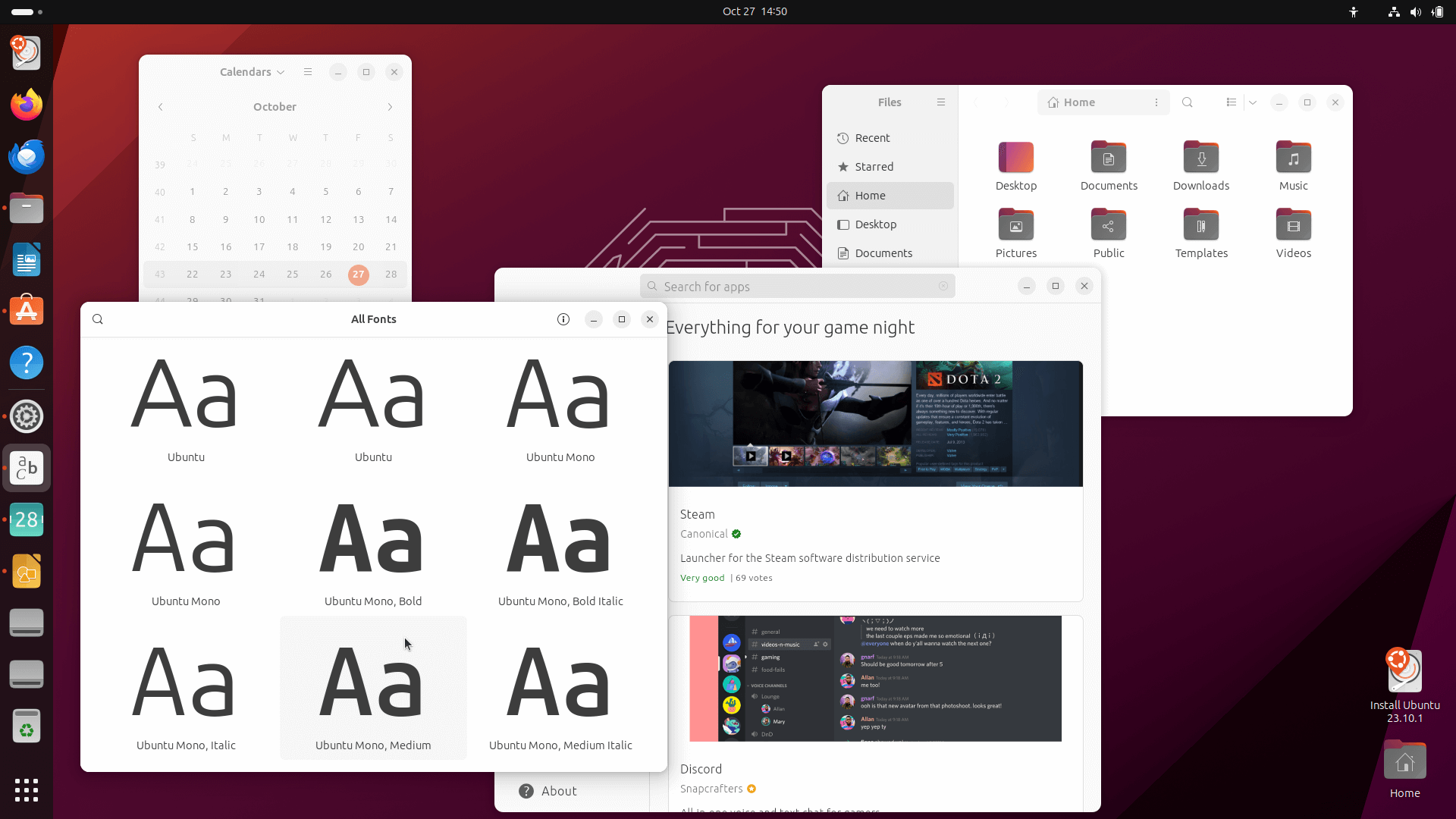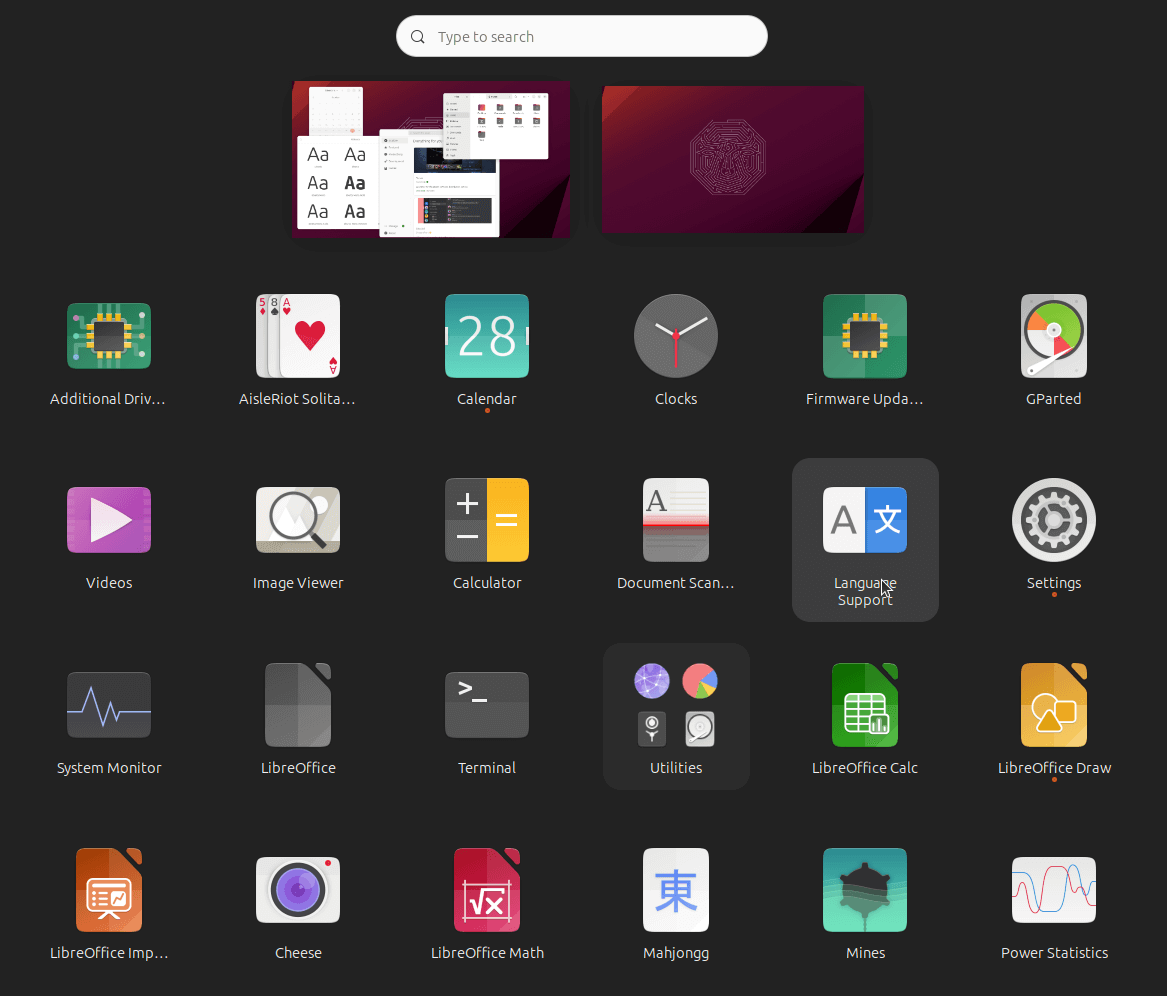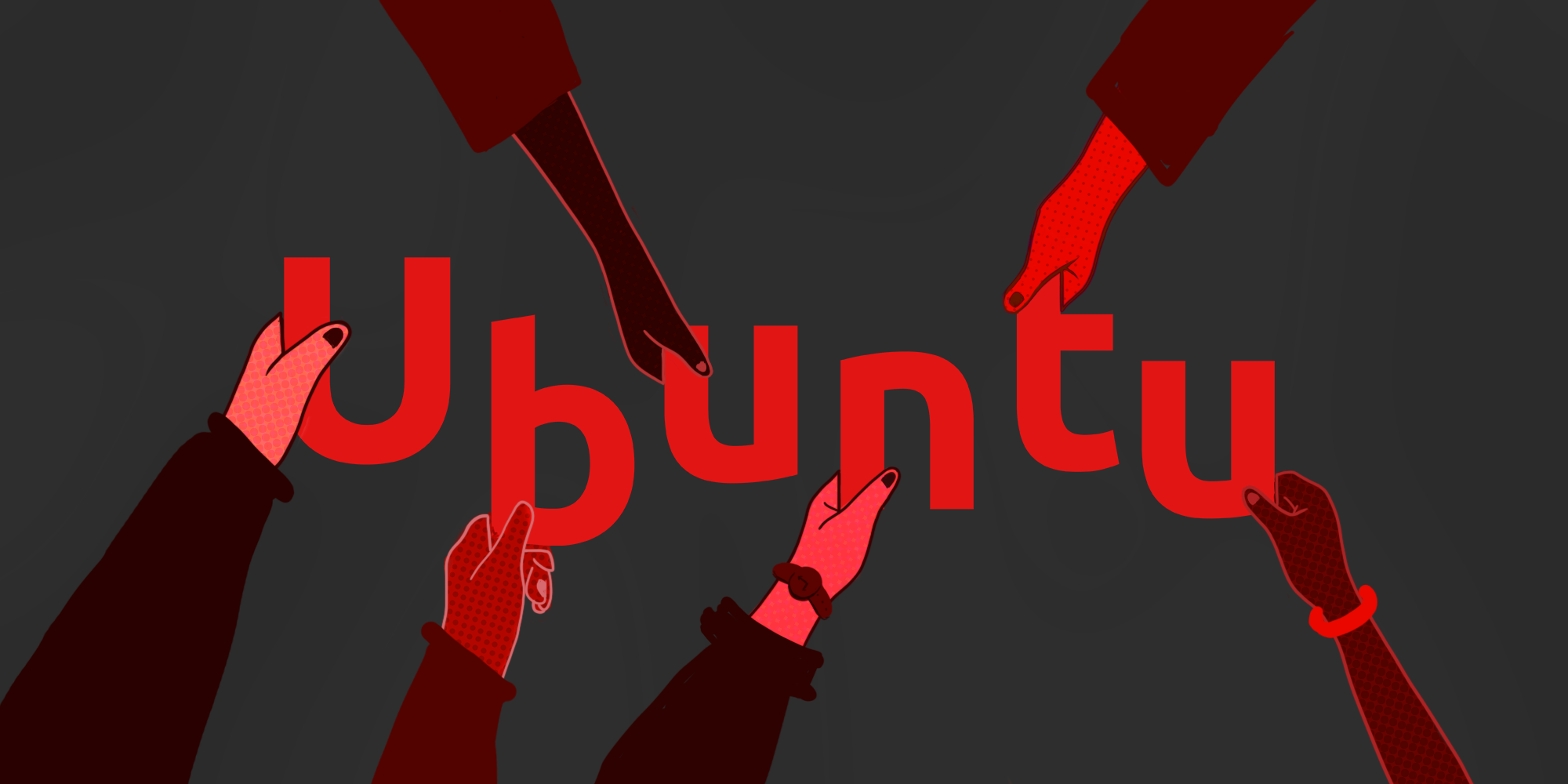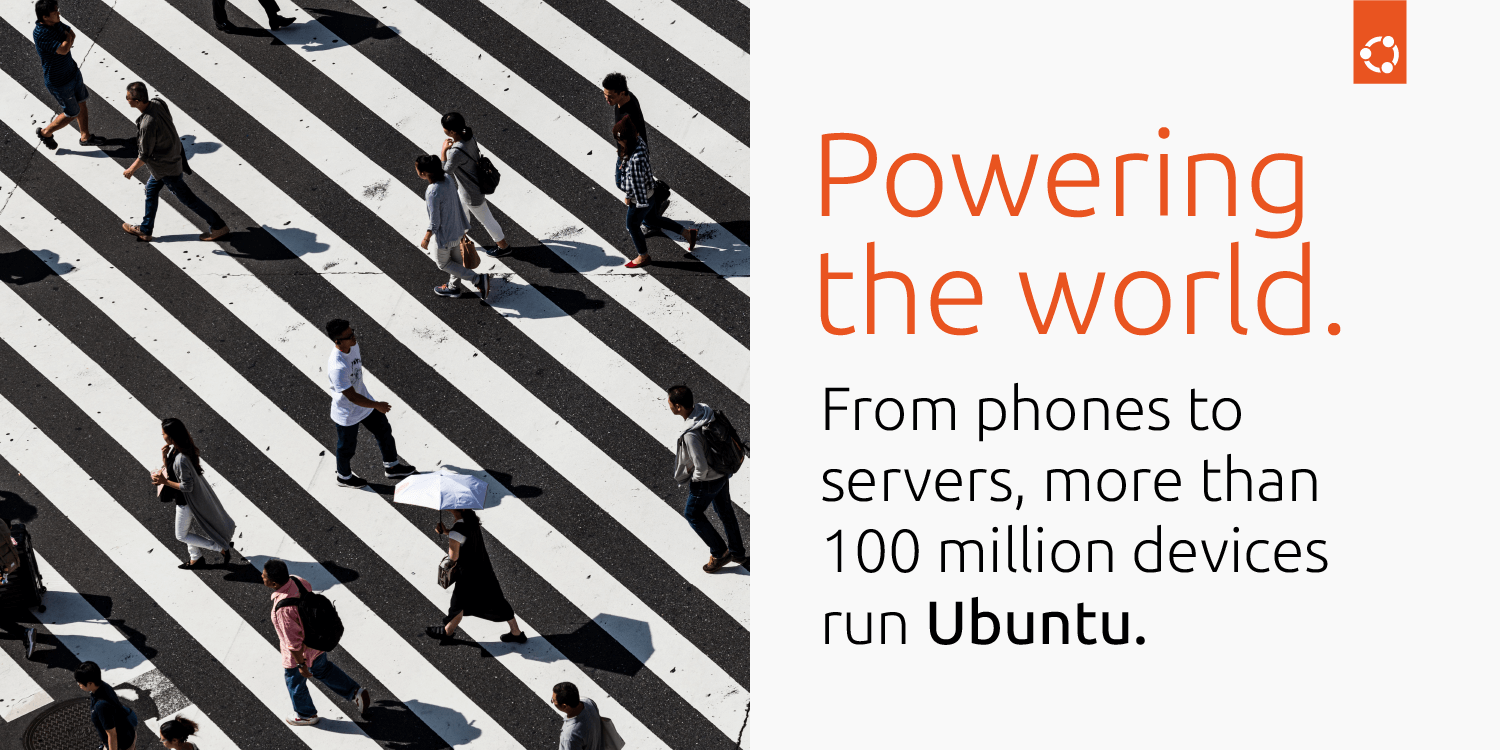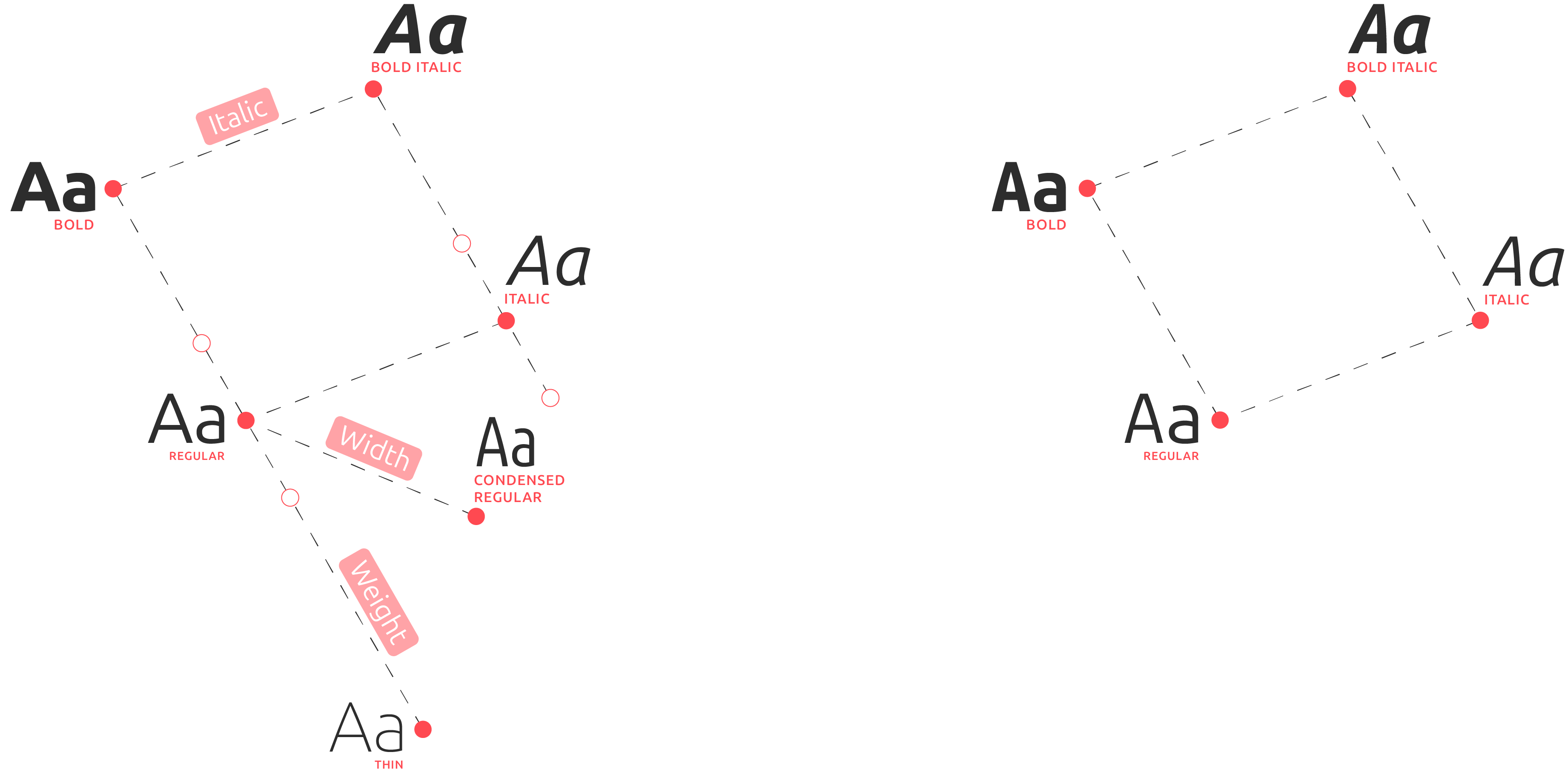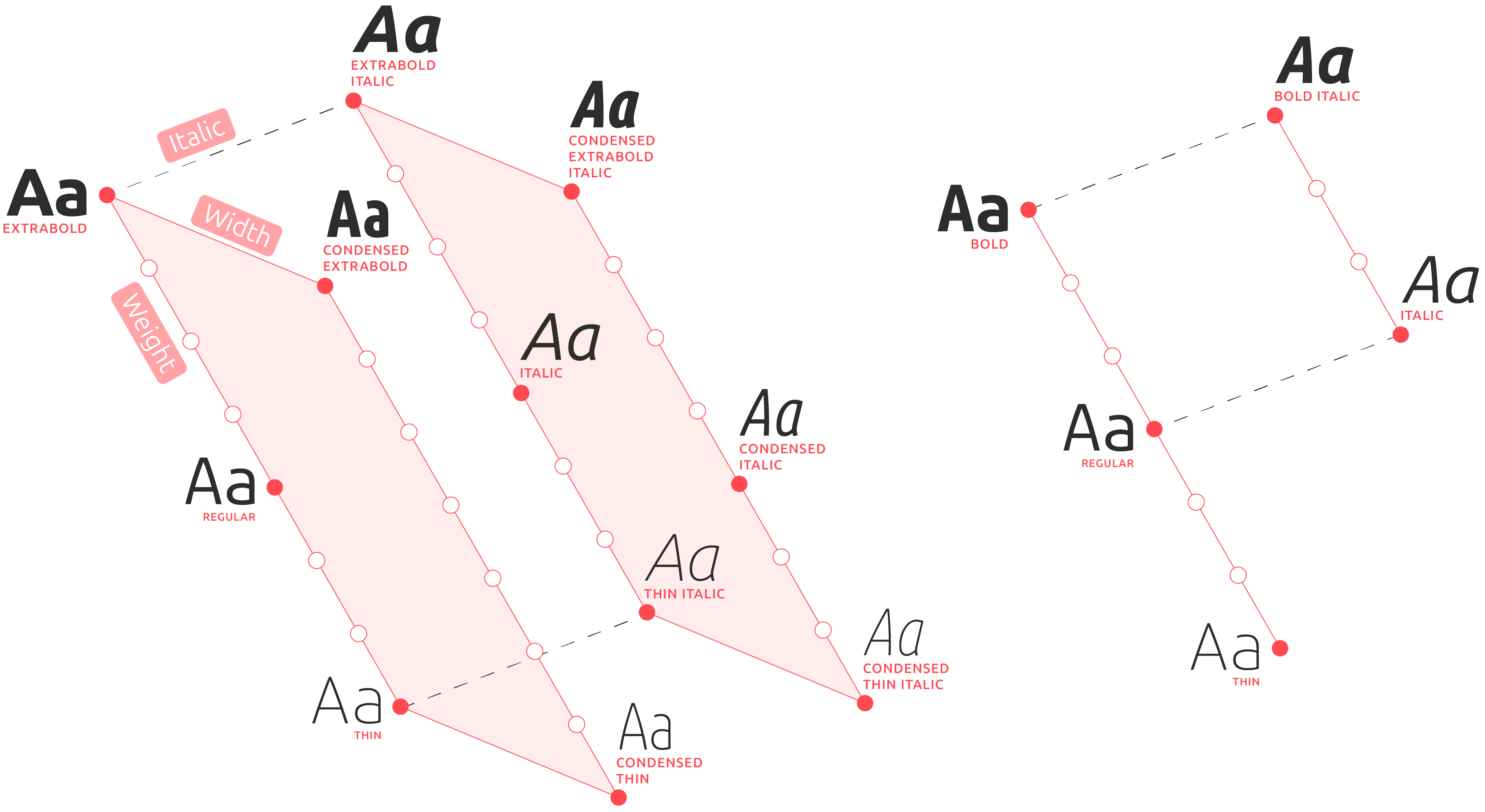
Ubuntu is a Nguni Bantu philosophical term frequently translated as “I am because we are,” or “I am because you are.” Its central tenet is that humans exist in an interconnected web. Ubuntu, the popular Linux operating system published by Canonical, takes this philosophy as the core of its mission. Composed mostly of free and open-source software, “Ubuntu delivers to everybody on the same terms. Whether you are a student in India or a global bank, you can download and use Ubuntu free of charge.”
Ubuntu’s developers believe strongly in the open-source ethos, so when variable fonts became commercially available, Canonical was eager to share the tech with the open-source community. They commissioned Type Network and our partners to create a variable version of their Ubuntu typeface for use in their interfaces, website, and branding.
We were excited to expand the sophistication and functionality of the Ubuntu typeface and we knew Type Network would be right for the job. It is great to partner with people who support our ethos and help us bring the latest technology in fonts to everyone.
—Lyubomir Popov, lead visual designer, Canonical
The Ubuntu typeface was designed for Canonical in 2010, and published as one of the very first open source fonts. Canonical and foundry Dalton Maag tracked its development in great technical detail on Canonical’s blog and developed an open license for its free use, study, modification, and distribution.
The original proportional (left) and original monospace (right) type families consisted of a core set of styles, plus a few experiments in weight and width.
Our mission: Flesh out the former experiments, fill in the widths, and make it all variable. The final result contained four variable fonts: The proportional VFs, roman and italic, each with weight and width axes (left), and the monospace VFs, roman and italic, each with a weight axis (right).
While Canonical already had a distinctive and functional UI typeface in Ubuntu, they wanted to refine and steward that design into a variable font. For the project, foundry partners Dyana Weissman (Kerns & Cairns) and David Jonathan Ross (DJR) met with Canonical’s founder and CEO Mark Shuttleworth to discuss the brief. Shuttleworth came to the table with more than a typical CEO’s knowledge of font technology, demonstrating his hands-on approach as the company’s leader.
The upgraded Ubuntu variable fonts are already being put to use everywhere across Ubuntu's latest release: 23.10.
DJR’s design acumen and Type Network’s rigorous technical review process proved well-suited to Canonical’s needs. DJR began by uniting Ubuntu’s eight styles, making them compatible for interpolation into a variable font. This work included shifting all existing weights a hair lighter, a reaction to how precise digital rendering has grown over the last decade. DJR also reassessed the spacing of the italics. Turning to the monospace version, he modified both its size and stylistic range, letting it operate more easily alongside the proportional font, which reflects the recent design trend of using monospace fonts beyond the console.
Once these designs had been harmonized, Weissman and Ross enlisted the Dual Type team, Gen Ramírez and Zrinka Buljubašić, to expand the weights and the already quite broad character set. They added small caps, condensed and mono styles for all weights, and more.
The nature of a variable font is expansive in this regard, with an ultimate goal of multi-dimensional consistency: where users can seamlessly use the family across weights, widths, monospace proportions, and italics. Producing a tool that achieves this requires painstaking technical cohesion throughout every style and weight. The team worked in concert, first figuring out the limits of each variable axis and then filling in Ubuntu’s characters along those axes. Type Network’s library manager Glenda Bellarosa contributed by researching characters beyond DJR’s or Dual Type’s customary character sets, identifying issues with individual glyphs, and generally overseeing the quality assurance process.
Statistics source: Ubuntu.
Dyana Weissman helps clients find their way to the logical, beautiful conclusion of whatever their creative challenge is.
As an open-source project, Canonical published the source code for Ubuntu (proportional and monospace) so that interested parties can study it and experiment with creating their own families from it. To make the font easily reproducible and remove any potential barriers, Type Network’s font engineer Guido Ferreyra adapted common automated font-build-practices for Ubuntu’s specific needs, then included it into the font. This means members of the open-source community won’t need to use a specific kind of software or have a deep font-making knowledge in order to generate, edit, or otherwise experiment with the font’s code.
We had no problems whatsoever during the project. Communication was great. Trust is important, and we trusted Type Network.
—Marcus Haslam, head of brand design, Canonical
Highly legible small and full of personality large, Ubuntu makes an ideal face for both interface and brand usage.